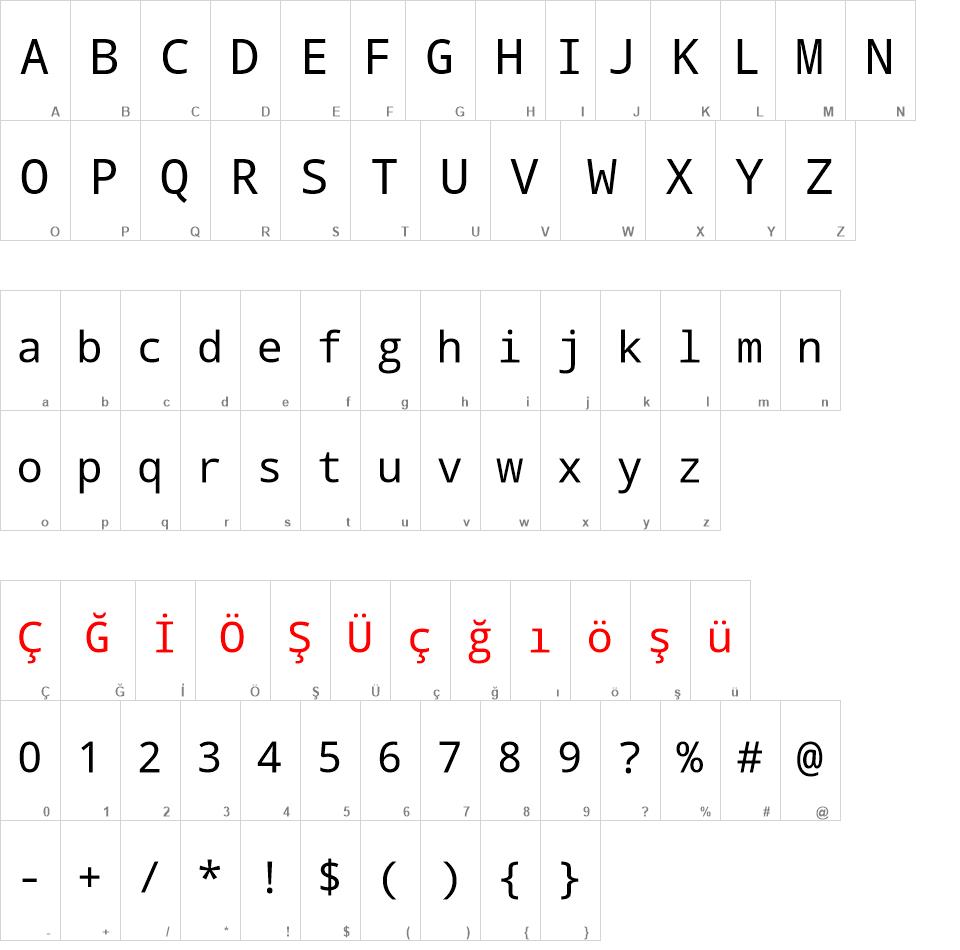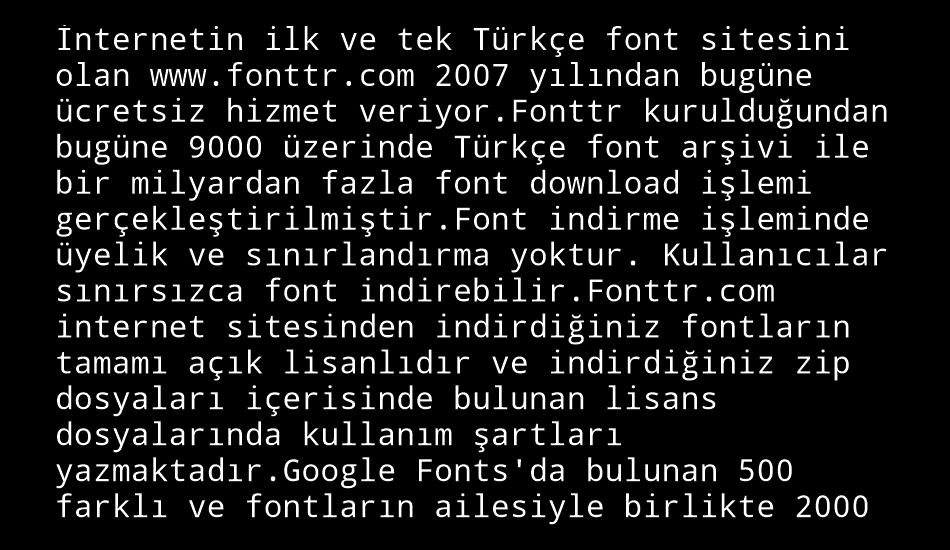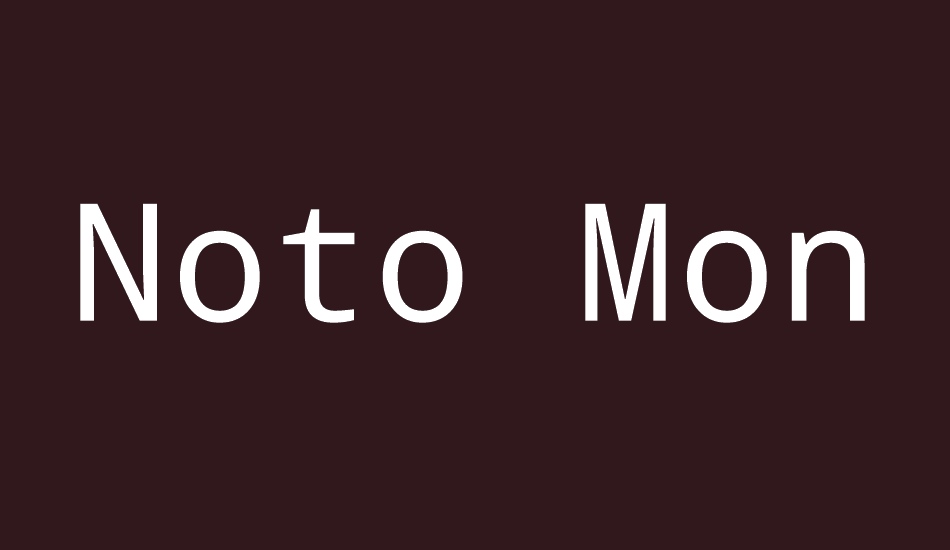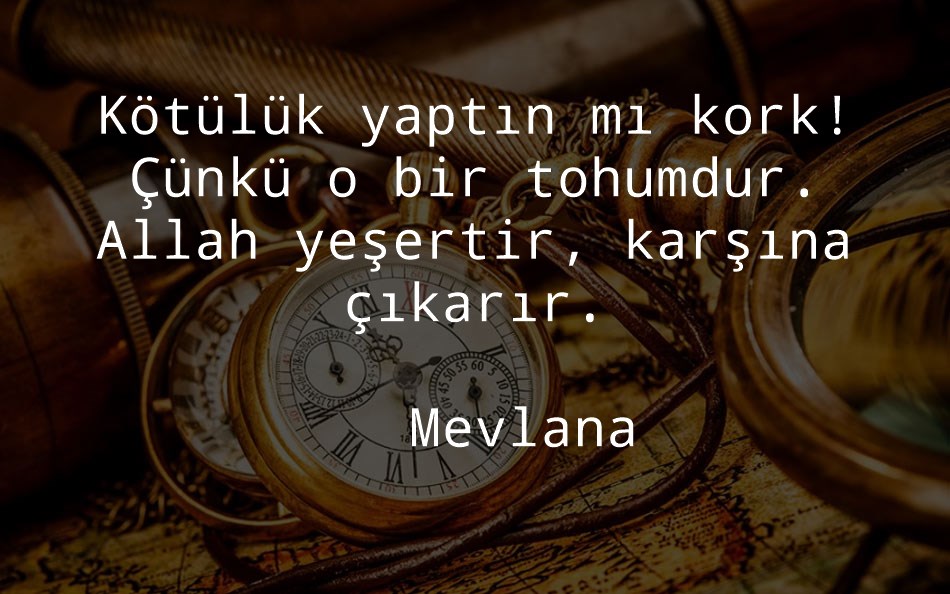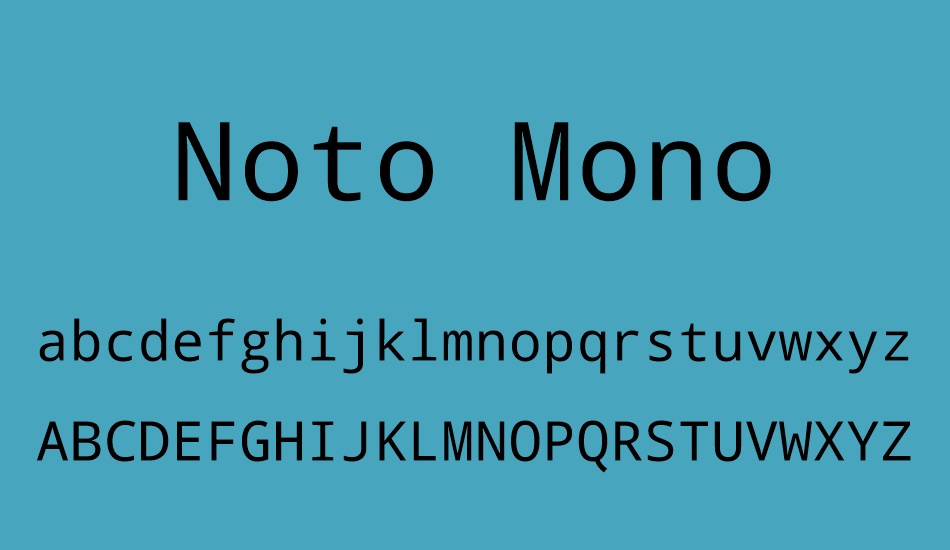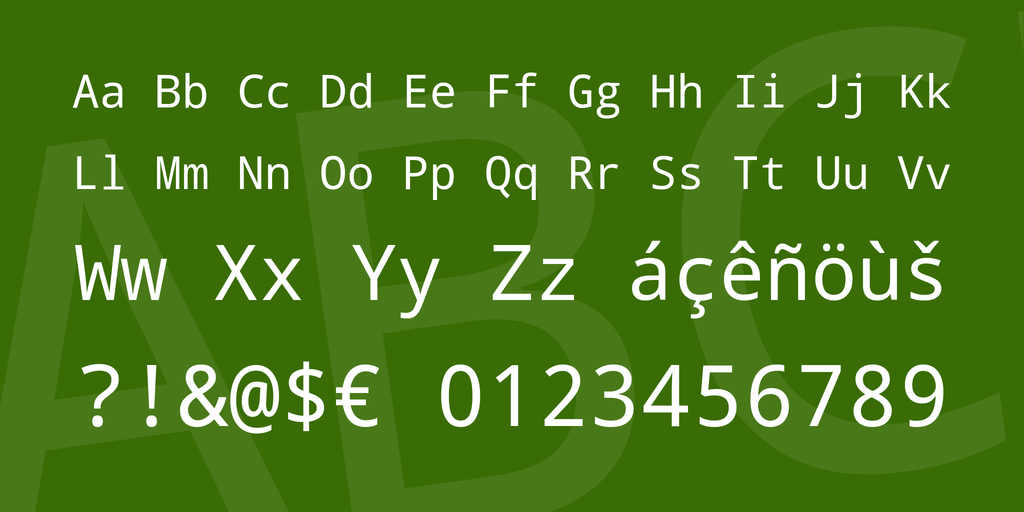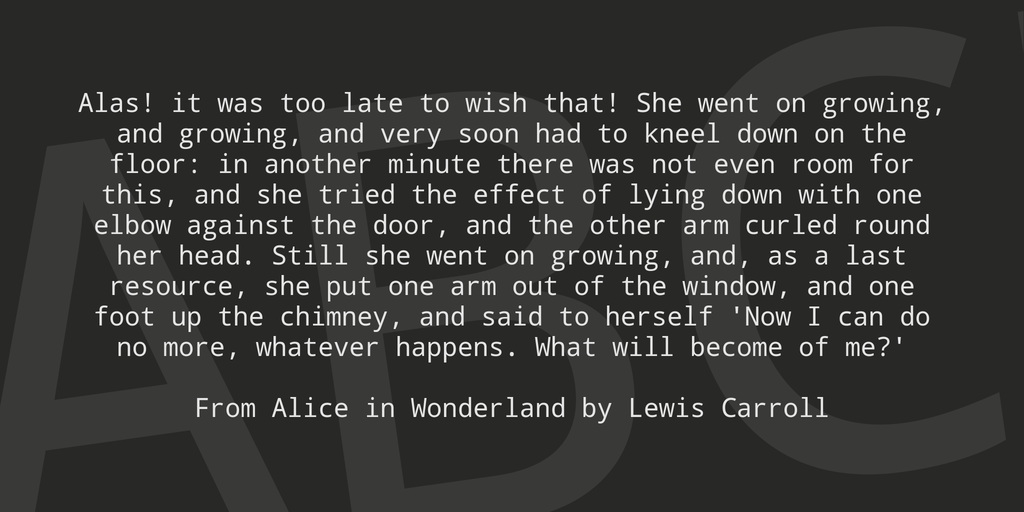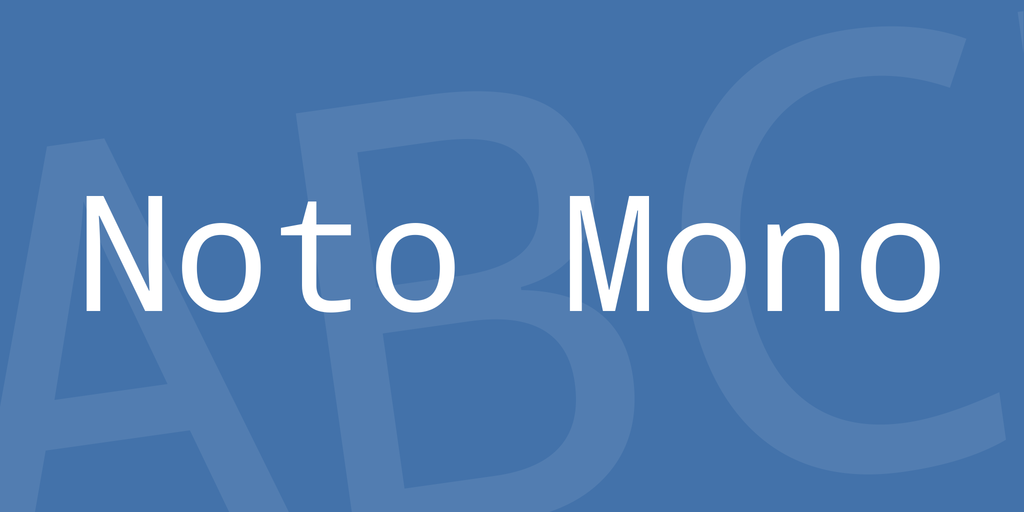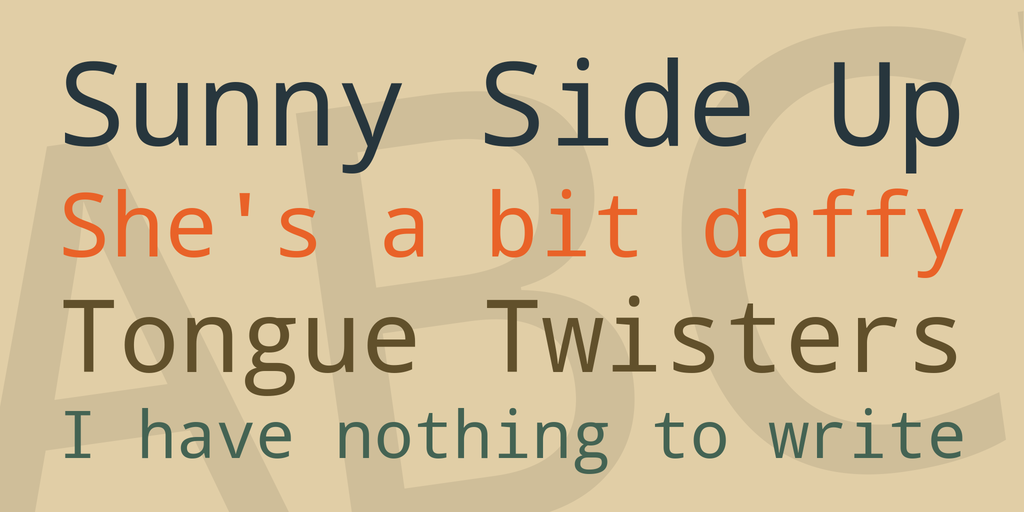
Noto Mono font
Noto Mono Font
When text is rendered by a computer, sometimes characters are displayed as “tofu”. They are little boxes to indicate your device doesn’t have a font to display the text.
Google has been developing a font family called Noto, which aims to support all languages with a harmonious look and feel. Noto is Google’s answer to tofu. The name noto is to convey the idea that Google’s goal is to see “no more tofu”. Noto has multiple styles and weights, and is freely available to all. The comprehensive set of fonts and tools used in our development is available in our GitHub repositories.
Noto Mono font